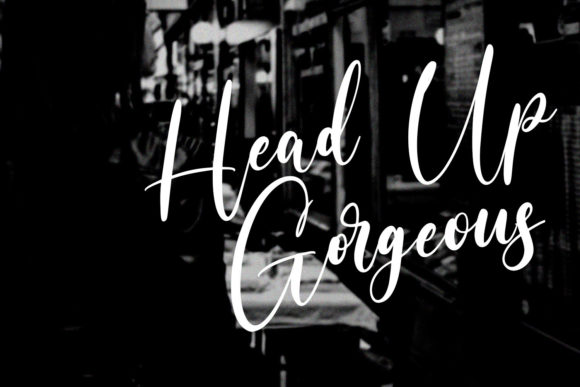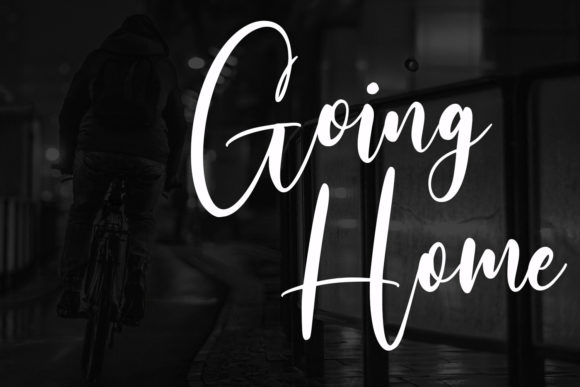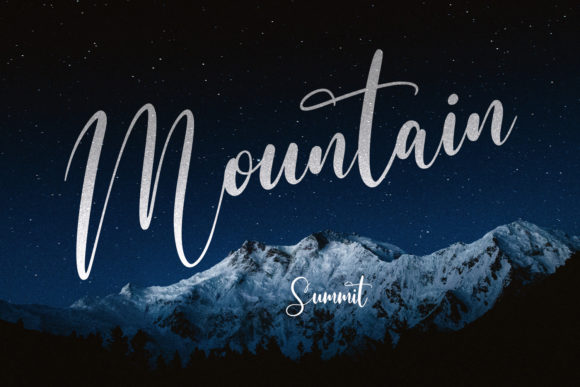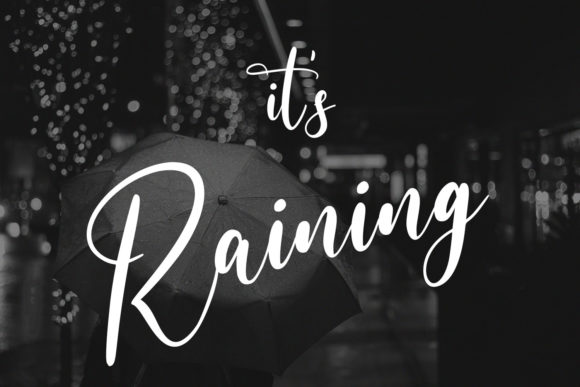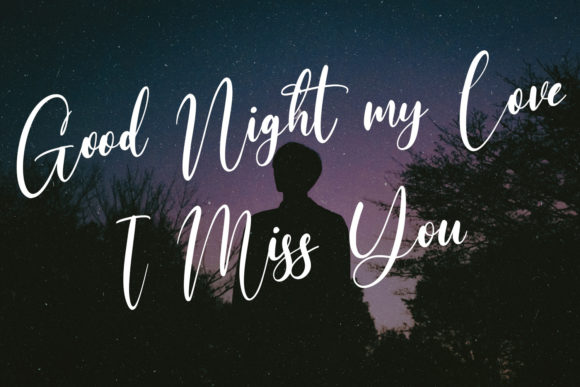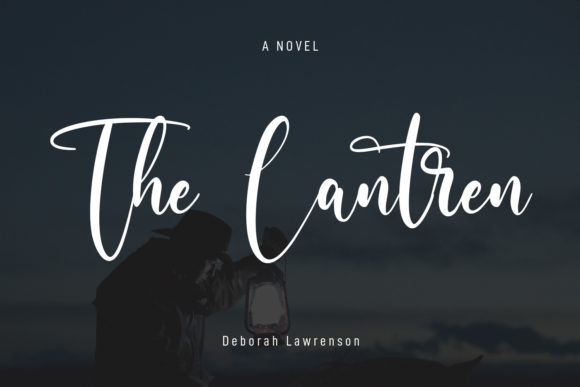
Introduction to Hellowanias Script Font
Imagine you’re brainstorming ideas for a new branding project, and you’re stuck on the perfect font to convey the essence of your creative vision. The moment you stumble upon a font that perfectly captures the mood and style you’re aiming for, it’s like a spark of inspiration has ignited. For designers seeking that elusive font that elevates their design to the next level, Hellowanias Script Font is a game-changer.
With its unique blend of regular contrast strokes, fun characters, and ligatures, Hellowanias Script Font offers an unparalleled level of creativity and versatility. Suitable for logos, t-shirt printing, sport designs, and more, this design resource is a must-have for any project that demands a high-quality, eye-catching visual impact. Whether you’re looking for a free download or a premium design solution, Hellowanias Script Font is a valuable addition to any designer’s toolkit.
One of the standout features of Hellowanias Script Font is its ability to shine in a wide range of contexts, from digital to print. With a transparent background and a plethora of customization options, designers can unlock the full potential of this font and take their creative project to new heights.
Key Features of Hellowanias Script Font
- Unique, handwritten design perfect for creative projects and personal use.
- High-quality font with transparent background, allowing for seamless integration with any design element.
- Designed with a touch of elegance, making it suitable for a wide range of creative projects, from wedding invitations to greeting cards.
- Perfect for designers looking for a unique and creative font to add a personal touch to their designs.
Honest Review: Hellowanias Script Font
I recently came across the Hellowanias Script Font, and I was excited to dive in and see what it had to offer. As a designer, I’m always on the lookout for high-quality design resources to elevate my creative projects.
What works well about the Hellowanias Script Font is its elegant and sophisticated feel. It’s perfect for adding a touch of whimsy to your designs without overpowering them. The font is available for free download, which is a huge bonus for designers on a budget.
- ✨ Elegant and sophisticated feel
- ✨ Perfect for creative projects
- ✨ High-quality design resource
However, there are a few limitations to consider. The font only comes in a transparent background, which may not be ideal for all design projects. Additionally, the font may not be as versatile as some other script fonts on the market.
- ⚠️ Limited to transparent background
- ⚠️ May not be as versatile as other script fonts
Overall, I think the Hellowanias Script Font is a solid addition to any designer’s toolkit. While it may have its limitations, its elegant feel and free download make it a great resource for creative projects.
Tips for Getting the Most Out of Hellowanias Script Font
Use the Hellowanias Script Font with a transparent background to create a beautiful, high-quality design. Experiment with different font sizes and colors to create visual interest. You can also combine the Hellowanias Script Font with other fonts to create a unique design.
The Hellowanias Script Font is perfect for creating invitations, posters, and other design projects that require a touch of elegance and sophistication. It’s also great for creating titles, headings, and other text elements that need to stand out.